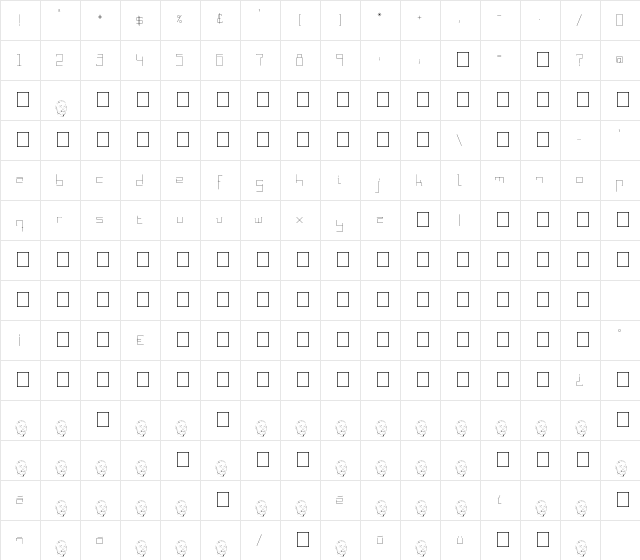
nada-Regular Regular
Design Context for nada-Regular Typeface
nada-Regular takes a measured approach to typography — its balanced proportions and neutral character make it a reliable workhorse for both digital and print work.